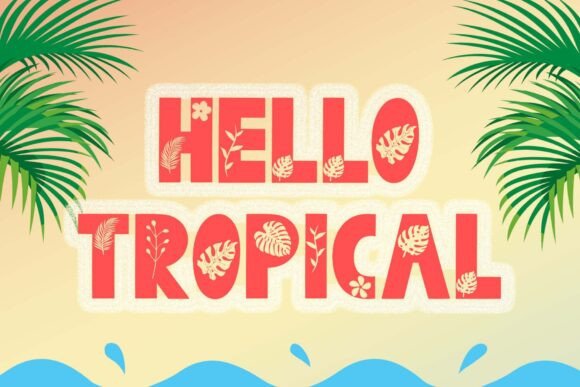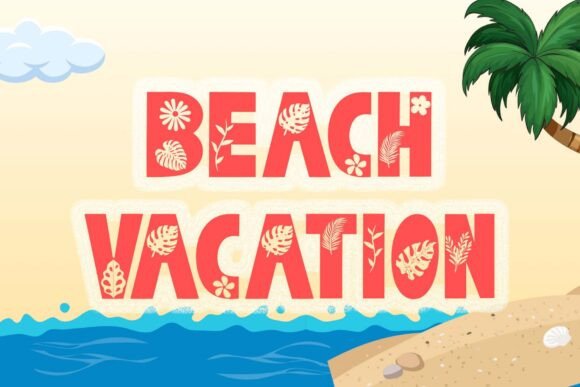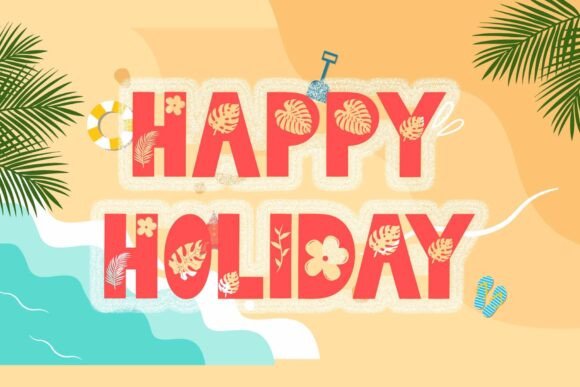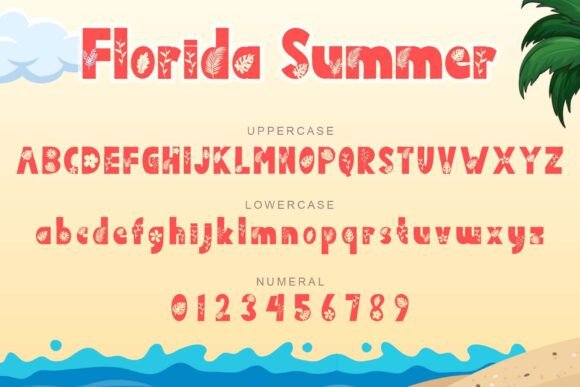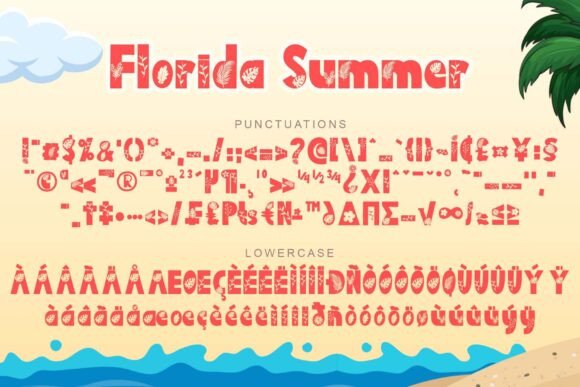
Introducing Florida Summer Font: The Perfect Addition to Your Summer Designs
Are you looking for a font that captures the carefree and playful spirit of summer? Look no further than the Florida Summer Font! This unique and charming display font is perfect for designers and crafters who want to add a touch of warmth and fun to their projects. In this article, we’ll dive into the features and benefits of the Florida Summer Font, and explore how you can use it to elevate your designs.
What is Florida Summer Font?
Florida Summer Font is a specially designed display font that exudes a sense of fun and playfulness. Its unique and quirky style makes it perfect for a variety of design projects, from summer-themed posters and banners to logos, stickers, and more. The font comes with a range of features that make it versatile and easy to use, including:
• Uppercase and lowercase letters
• Numerals and punctuation marks
• Multilingual support
Key Features of Florida Summer Font
So, what makes Florida Summer Font so special? Here are some of its key features:
• Unique and playful style: Florida Summer Font has a distinctive and eye-catching style that’s perfect for making a statement.
• Multilingual support: The font supports multiple languages, making it a great choice for designers who work with international clients or want to create designs that cater to a global audience.
• Uppercase and lowercase letters: The font includes both uppercase and lowercase letters, giving you flexibility and versatility when it comes to designing.
• Numerals and punctuation marks: Florida Summer Font comes with a range of numerals and punctuation marks, making it easy to create complete and professional-looking designs.
Use Cases for Florida Summer Font
So, how can you use Florida Summer Font in your designs? Here are some ideas to get you started:
• Summer-themed posters and banners: Create eye-catching posters and banners that capture the spirit of summer with Florida Summer Font.
• Logos and branding: Use the font to create unique and memorable logos and branding materials for summer-themed businesses or products.
• Stickers and labels: Add a playful touch to your stickers and labels with Florida Summer Font.
• Camping and outdoor designs: The font’s adventurous and carefree style makes it perfect for camping and outdoor-themed designs.
• Holiday and vacation designs: Use Florida Summer Font to create festive and fun designs for holidays and vacations.
Tips for Using Florida Summer Font
Here are some tips for getting the most out of Florida Summer Font:
• Experiment with colors: Florida Summer Font looks great in bright and bold colors, so don’t be afraid to experiment and find the perfect color scheme for your design.
• Mix and match: Try pairing Florida Summer Font with other fonts to create a unique and interesting design.
• Keep it simple: Don’t overcomplicate your design – Florida Summer Font is perfect for simple and straightforward designs.
Florida Summer Font is a unique and playful display font that’s perfect for designers and crafters who want to add a touch of summer fun to their projects. With its range of features, including uppercase and lowercase letters, numerals and punctuation marks, and multilingual support, it’s versatile and easy to use. Whether you’re creating summer-themed posters and banners, logos and branding materials, or stickers and labels, Florida Summer Font is the perfect choice. So why not give it a try and see how it can elevate your designs?